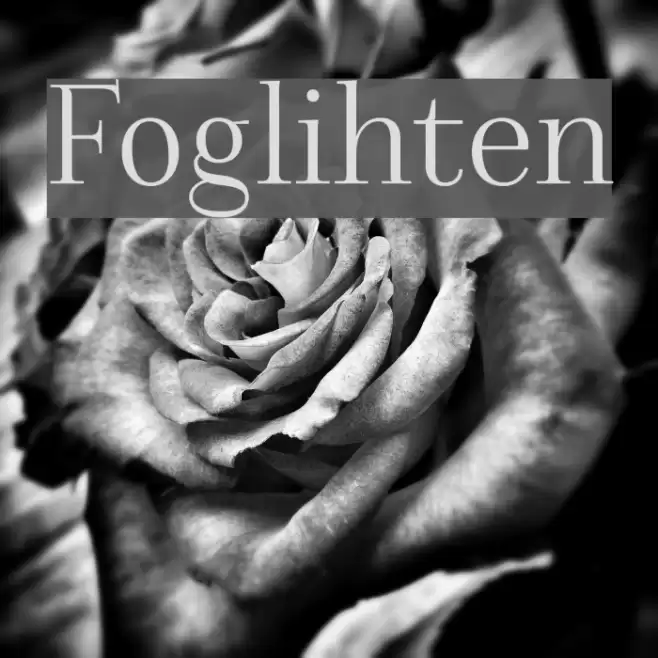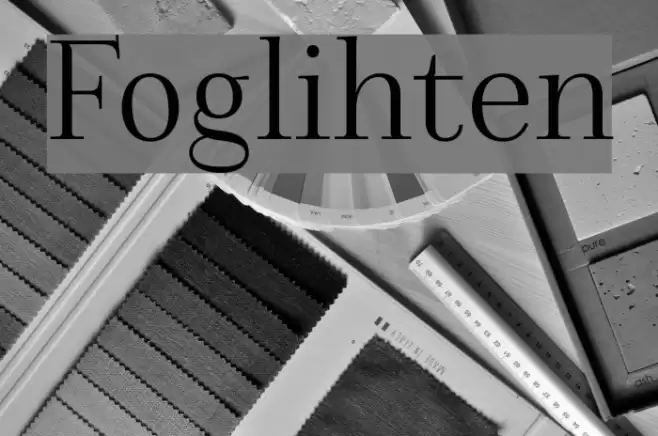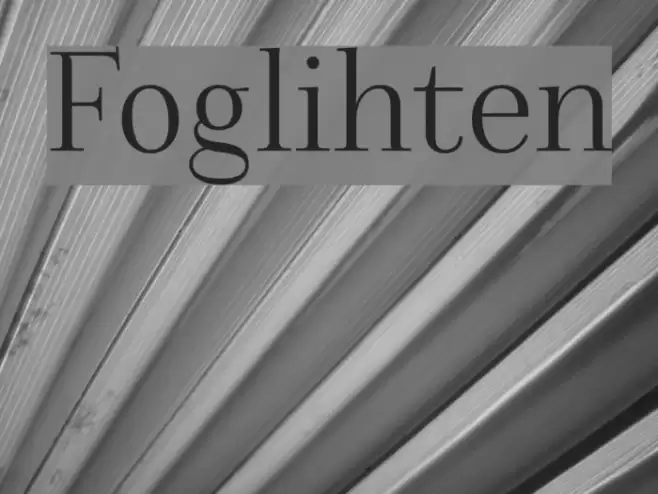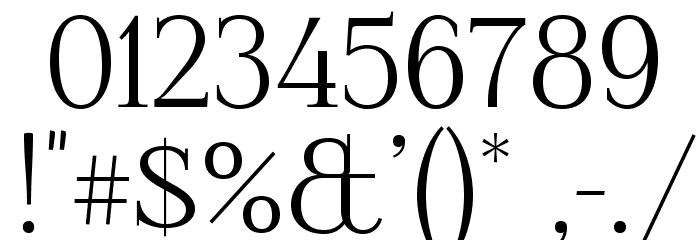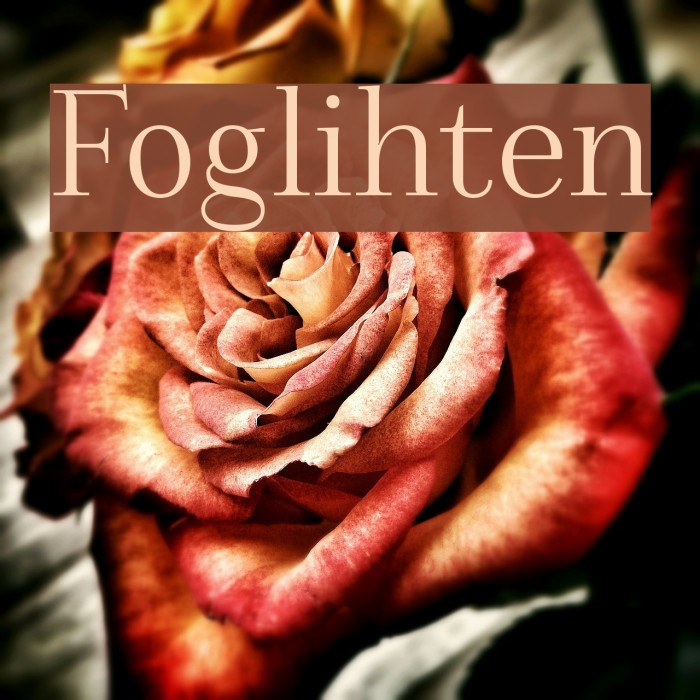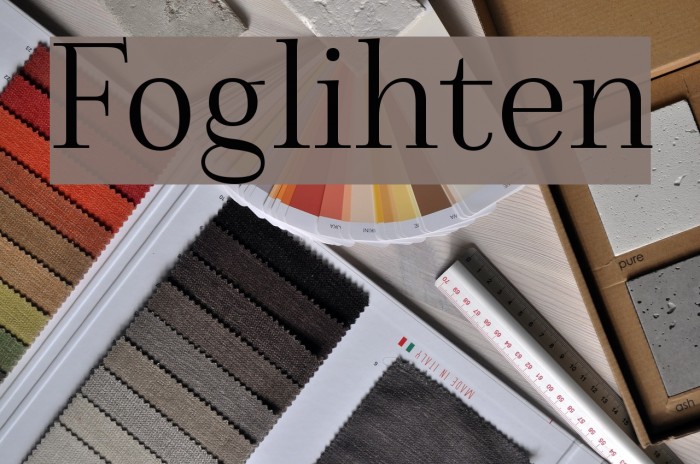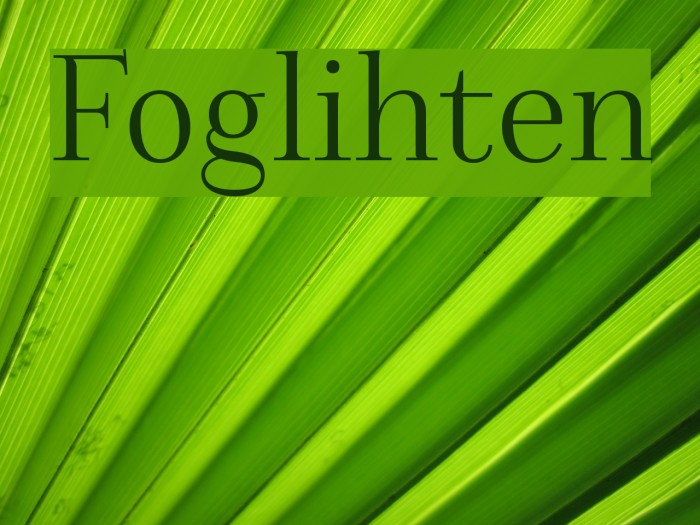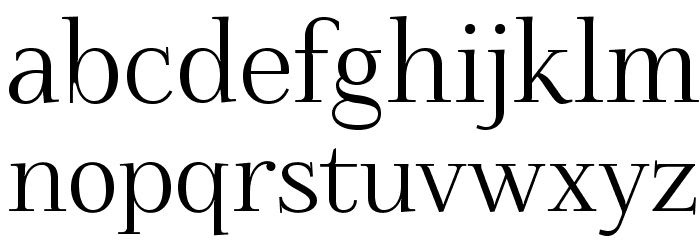
Foglihten
This font features a classic serif style with elegant, thin strokes and high contrast between thick and thin lines. The serifs are pronounced and slightly curved, adding a touch of sophistication and readability. The uppercase letters are tall and commanding, while the lowercase letters maintain a balanced and harmonious appearance. The numerals are clear and distinct, making them suitable for both formal and casual contexts. Special characters are designed with the same attention to detail, ensuring consistency across all glyphs.
A classic serif font with high contrast and elegant curves.
- Proposed Projects: Ideal for editorial design, book covers, formal invitations, and branding projects that require a touch of elegance and tradition.
- Category: Serif
- Contrast: High
- Overall Style: Classic